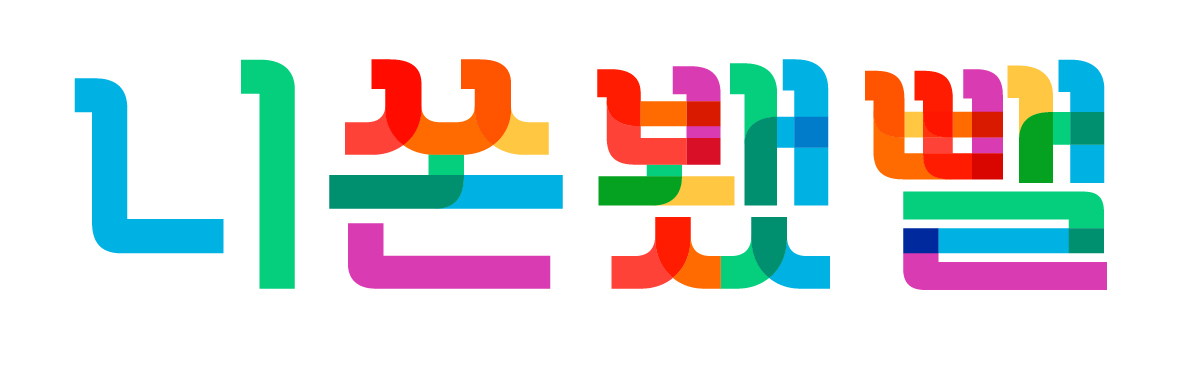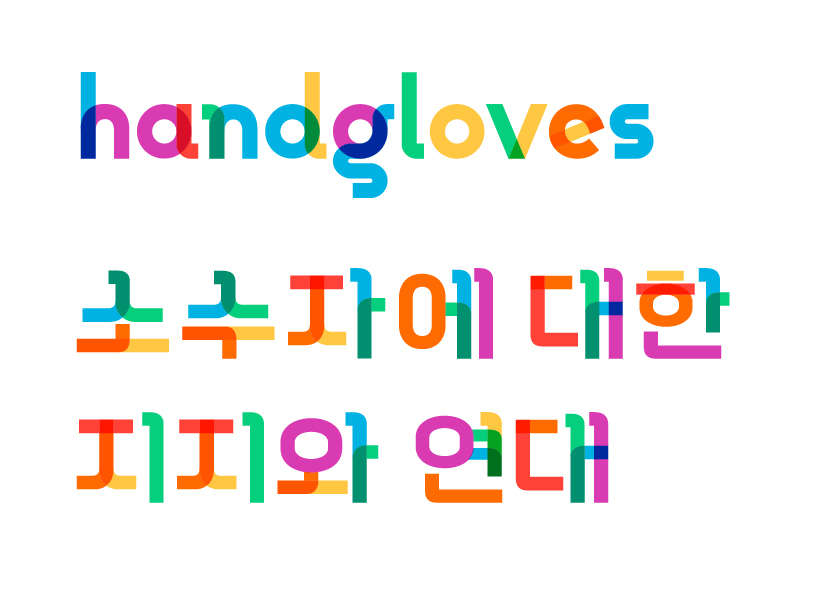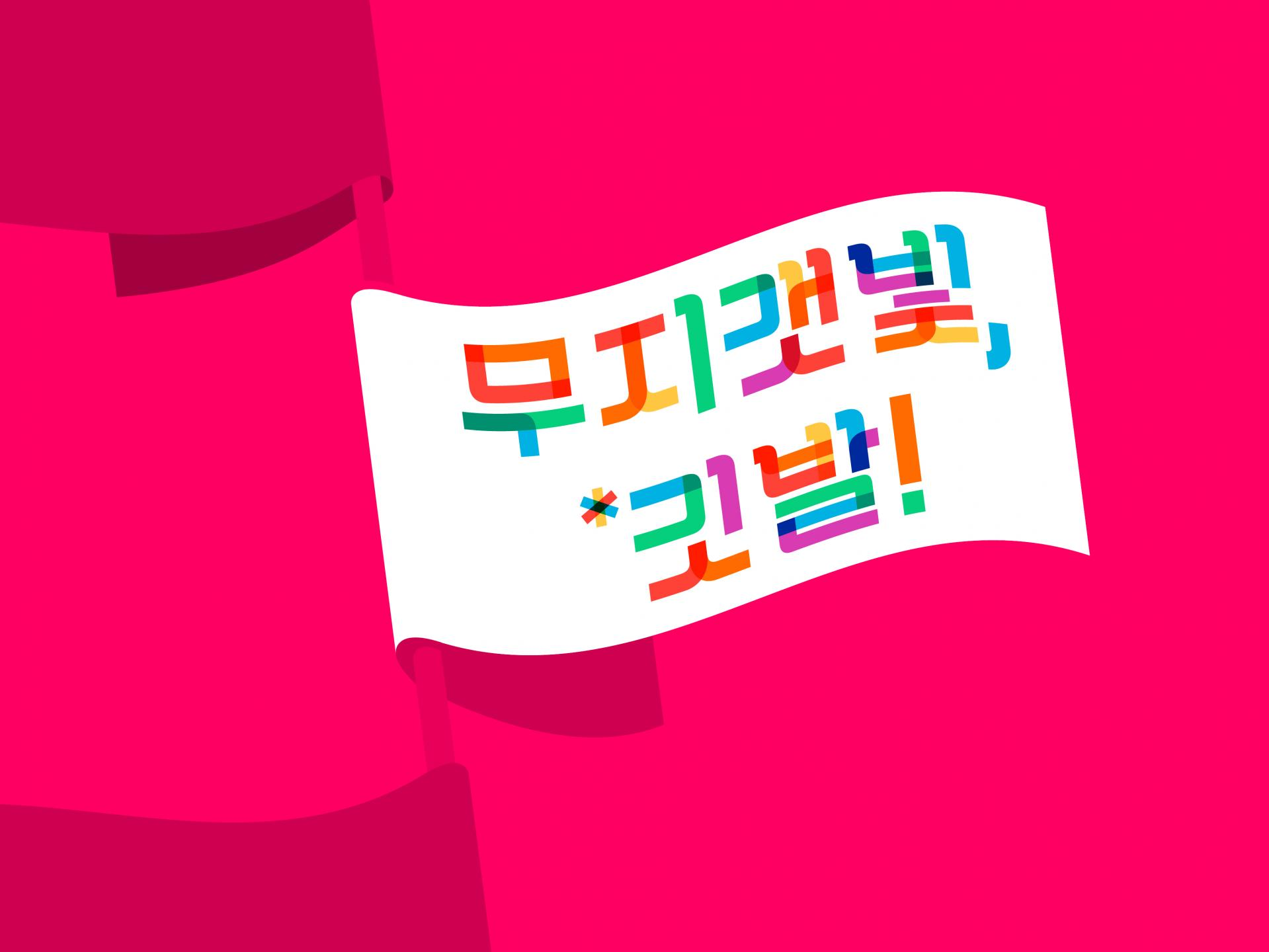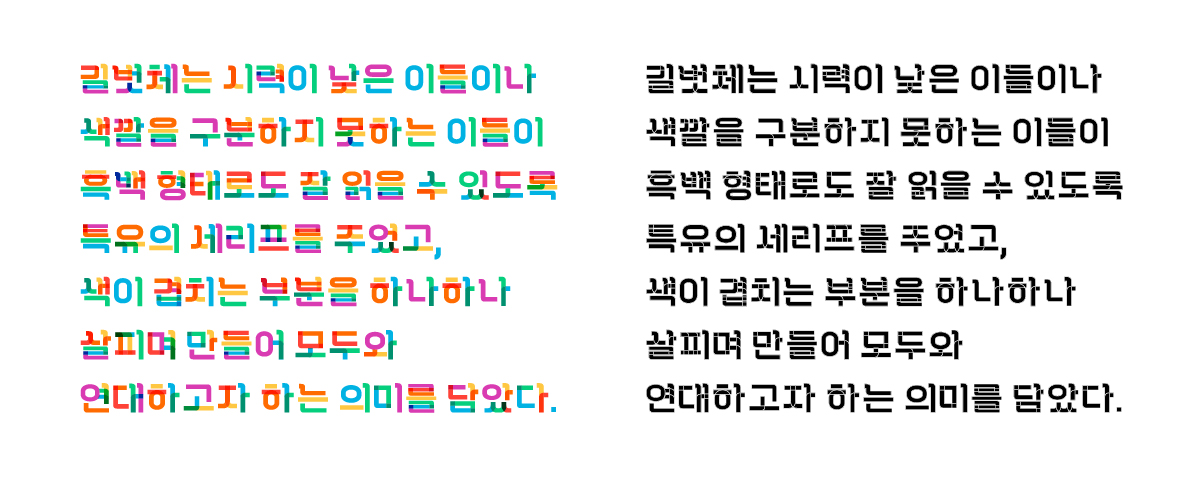
This is the Korean font derived from the English font 「Gilbert Typeface」, created in honor of Gilbert Baker (1951–2017), an LGBTQ+ activist and the designer of the rainbow flag of pride. The name 「Gilbeotche」 carries the meaning of continuing Gilbert Baker’s intentions, while also conveying the sense of being a “companion” (beot) who joins the journey (gil) toward a society that respects diversity. 「Gilbeotche」 is the first fully composed Hangul font to apply full color across all glyphs.
—From 『Gilbeotche Haeryebon』
Following the release of 「Rainbow Gilbeotche」 in September 2020, 「Transgender Gilbeotche」 was released in November, and 「Bisexual Gilbeotche」 in January 2021.
—From 『Gilbeotche Haeryebon』
Whenever I come across works that use 「Gilbeotche」 both online and offline, I naturally come to regard the space to which those works belong as safe. It is rare—and therefore precious—for the mere act of using a specific font in a work to draw out a sense of communion between the creator and the viewer. However, the reason 「Gilbeotche」 is actively used across various contexts is not solely due to the symbolism bestowed by the designer.
I am rather shy by nature, so I like people who smile easily. Those who radiate warm energy effortlessly make their presence felt wherever they are. It is easy to open one’s heart to such people. That was my first impression of 「Gilbeotche」. A cheerful and gentle font with a lively rhythm contained within firmly connected lines of text. A single font is completed through countless choices made by its designer. And those varied choices are harmoniously connected to reveal the designer’s intent. The form of 「Gilbeotche」 is likewise closely tied to its purpose of creation.
「Gilbeotche」 is built on a skeleton that fully fills a square frame. A distinctive feature lies in the proportion between the initial consonant and the final consonant in horizontally combined syllables, which fill the square vertically. In general, in text-oriented Hangul sans-serif fonts, the final consonant is designed so that the visual weight between the initial and final consonants is balanced at roughly 5:5, forming a stable structure.
However, 「Gilbeotche」 places a clear weight in the margin on the side of the initial consonant. The stroke weight of 「Gilbeotche」 is similar to that of 「SD Greta Sans」 Bold. In fonts with such thick strokes, if the proportion of the final consonant is reduced within the square, the inner space of the final consonant inevitably has to be subdivided more finely to maintain consistency in stroke thickness. With thick strokes and narrow inner spaces, the density of the final consonant area becomes even higher. The pulling force between the strokes of the final consonant also becomes stronger. As a result, the spaces between strokes appear visually narrower. This is a combination of structure and weight that maximizes the spatial contrast between the initial and final consonants. The contrast thus created generates tension between components and forms a dynamic sense of space, rather than the static and orderly feeling produced by uniform spacing. This intention is also revealed in the design of the consonants themselves.
The shape of the giyeok in 「Gilbeotche」 is identical to the giyeok shown in the Hunminjeongeum Haerye from the era of early metal type. It is a geometric form in which the horizontal and vertical strokes meet at right angles. For this reason, 「Gilbeotche」 is characterized by the way it utilizes the initial consonant space. In typical fonts, the diagonal spur of a bent giyeok divides the initial consonant space diagonally in two, whereas in 「Gilbeotche」 the large space of the initial consonant can be used in its entirety. In effect, the space of giyeok becomes similar to that of nieun. Such a giyeok increases the frequency with which large volumes of whitespace appear within the text block. Let us compare this with 「Arita Dotum」, which has a similar giyeok form. Looking at [Figure 2], the difference from 「Gilbeotche」 becomes clear in horizontally combined syllables. The giyeok bends once more to the left beneath the vertical stroke, transforming into a hook-like variation, and this form demonstrates its effectiveness when it meets the final consonant of a syllable. The space beneath the spur, which would otherwise be empty, is filled by the horizontal straight line formed by the initial consonant. As a result, when giyeok or ssanggiyeok appears as the initial consonant in horizontally combined syllables, a thin and crisp linear inner space is formed, much like when mieum or bieup appears.
The same rule is applied to siot, which has a diagonal spur similar to giyeok. The approach applied to siot is even more intriguing due to the fresh angle of its spur and descending stroke. Generally, siot is constructed by joining two straight lines at a slanted angle, dividing its space into three parts. However, in 「Gilbeotche」, the spur and the descending stroke extend left and right from a single vertical stroke, each forming a right angle with it. The spur and the descending stroke are symmetrical, dividing the space broadly into two. As with giyeok, a horizontal straight line finishes the lower part of the consonant. The thick beak stabilizes the center of the large empty space, while a small, sharp triangular notch is added at the lower center of the initial consonant to maintain consistency with giyeok while still allowing the character to be read as siot. When viewed at a small size of around 14 pt, this tiny, sharp, ink-trap-like space sparkles attractively in contrast to the mass above.
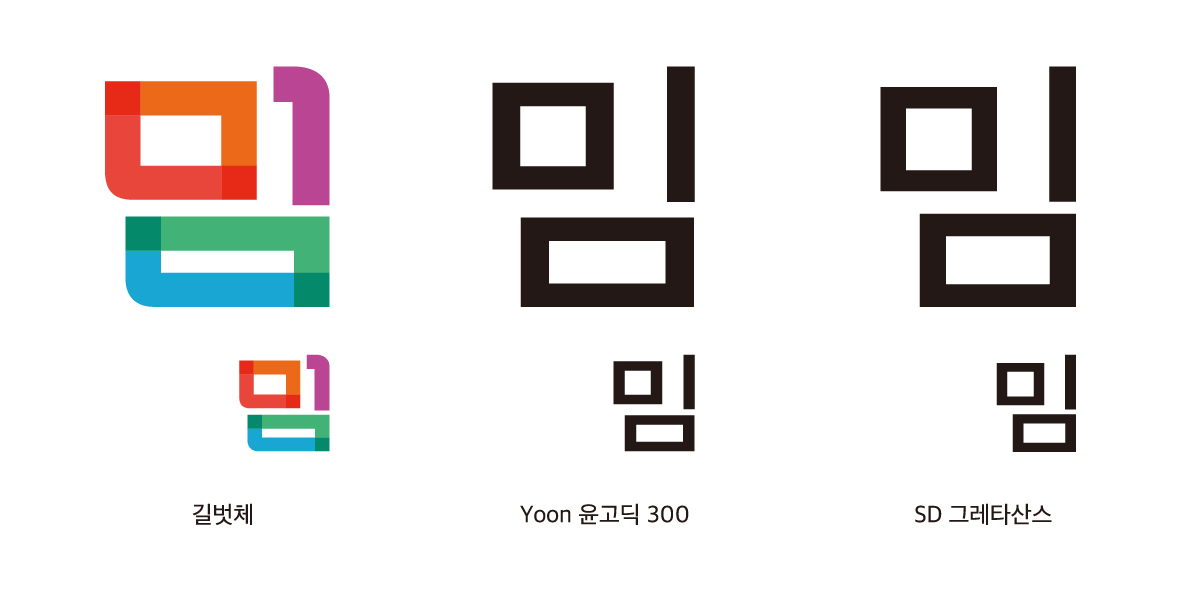
Figure 1
Figure 2
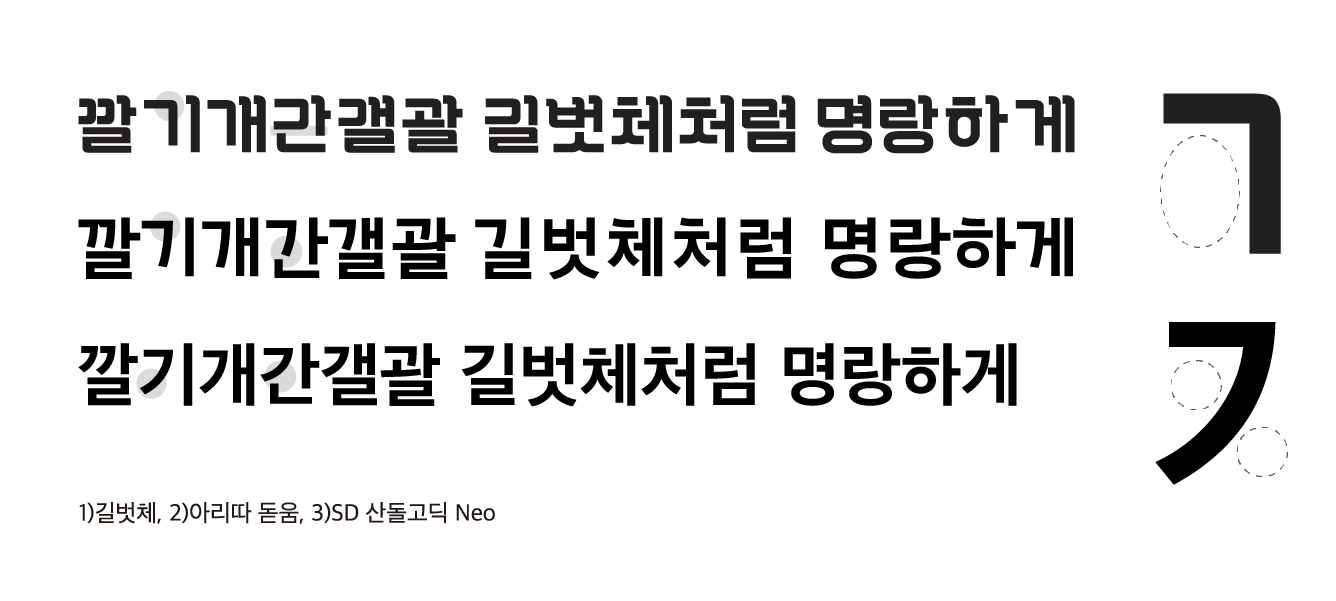
Figure 3
As a result, among nineteen cases of horizontally combined syllables, sixteen now have initial consonants whose lower edges are finished with a horizontal straight line. The compact and consistent forms of inner spacing, along with repeatedly aligned horizontal straight lines, form a firm and orderly texture within the line of text. This texture harmonizes well with the refreshing and dynamic spatial sense created by consonants with open spaces, complementing one another. I cannot help but think that this combination resonates with the openness and sense of solidarity toward diversity that 「Gilbeotche」 seeks to convey.
Next, one cannot help but mention another defining feature of 「Gilbeotche」: its large, softly bent, pipe-like beaks. This was taken from the English font 「Gilbert Typeface」, which serves as the basis of 「Gilbeotche」. It is a form that evokes a fluttering flag. When looking at these Hangul beaks, one is naturally reminded of the slab serif style of Latin fonts. However, there is a twist here: 「Gilbert Typeface」 is actually a sans-serif font. The forms applied to the beaks of 「Gilbeotche」 appear in 「Gilbert Typeface」 in elements such as the spurs of ‘a’ and ‘b’, and the terminal of ‘r’.
Designer Seongwoo Bae, however, applied this form more actively by using it in the beaks of vertical strokes during the process of Hangul adaptation. The beak is thickest and largest in ‘니’, and gradually becomes thinner and smaller as it moves toward more complex syllable combinations such as ‘뺄’ and ‘뵀’. When beaks of delicately adjusted sizes and curvatures come together, one can visually sense a natural gradation. Through such work, the font was likely produced to maintain its distinctive form while avoiding any visual discomfort on the page.
“What is this cute font?”
The moment I pulled up 「Gilbeotche」 large on the screen to refer to it while writing, a friend beside me exclaimed. Indeed, it is a lovely font that smiles brightly and warmly invites conversation.